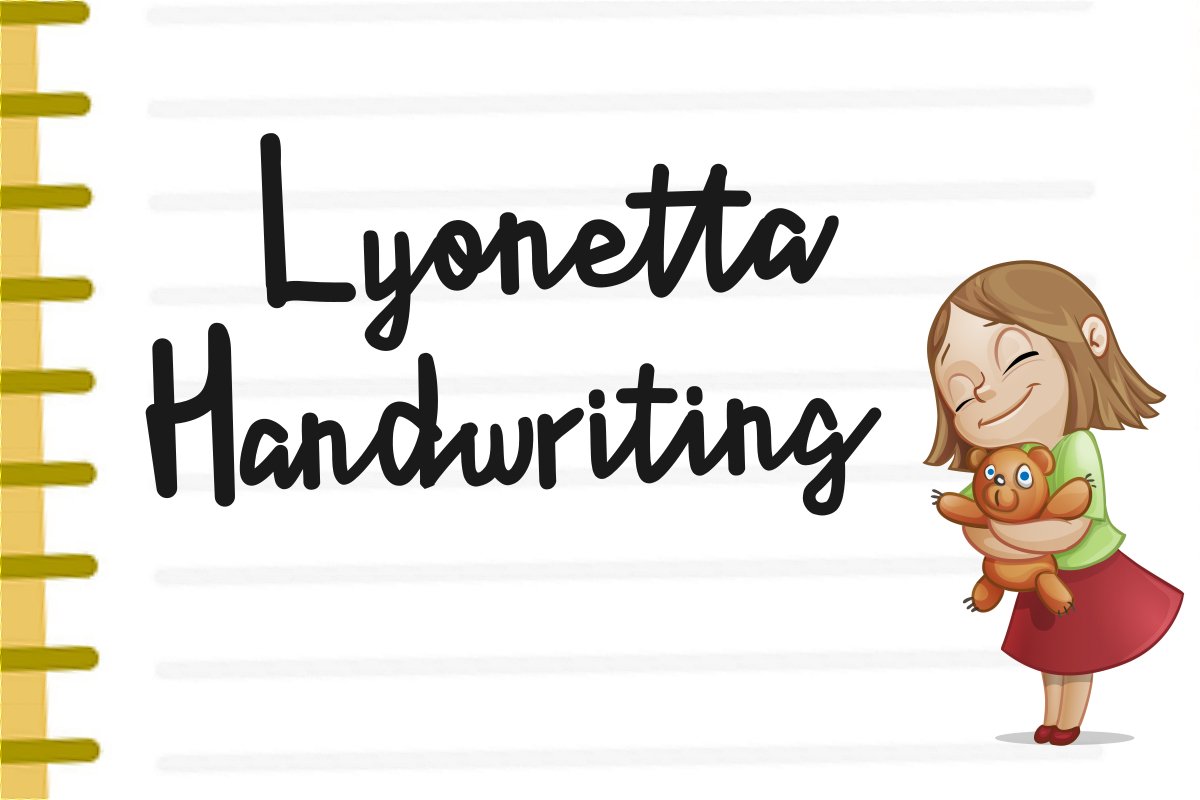
Lyonetta Handwriting
Introducing Lyonetta Handwriting, a kids handwritten script font.
Perfectly suited for book titles, posters, cards, tshirts, mugs, social media and many more!